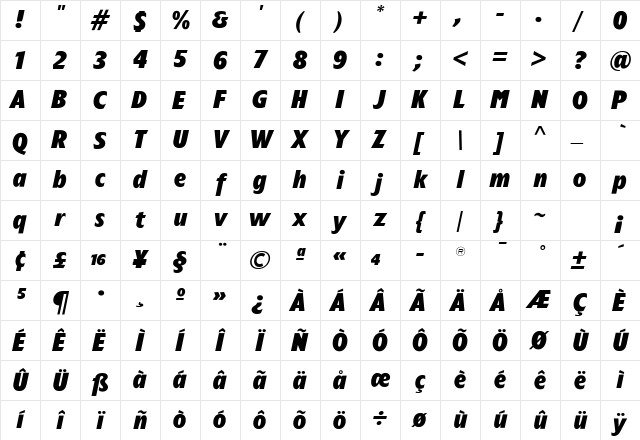
TFForever Extrabold
Style: Extrabold
Foundry: J. Treacy,Treacyfaces,Inc
Design Context for TFForever
TFForever is a composed and adaptable typeface that performs quietly and consistently across a wide range of design contexts. Its bold stroke weight gives it real presence on the page.
Who designed the TFForever Extrabold font?